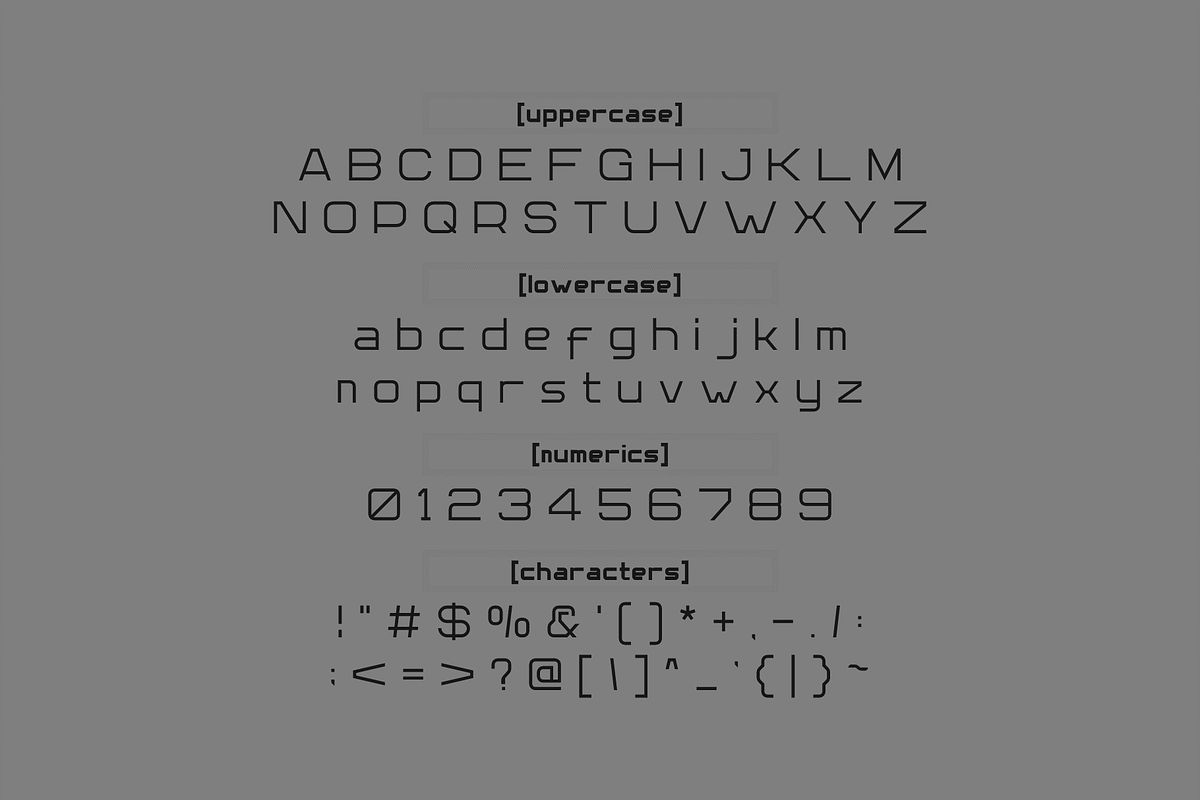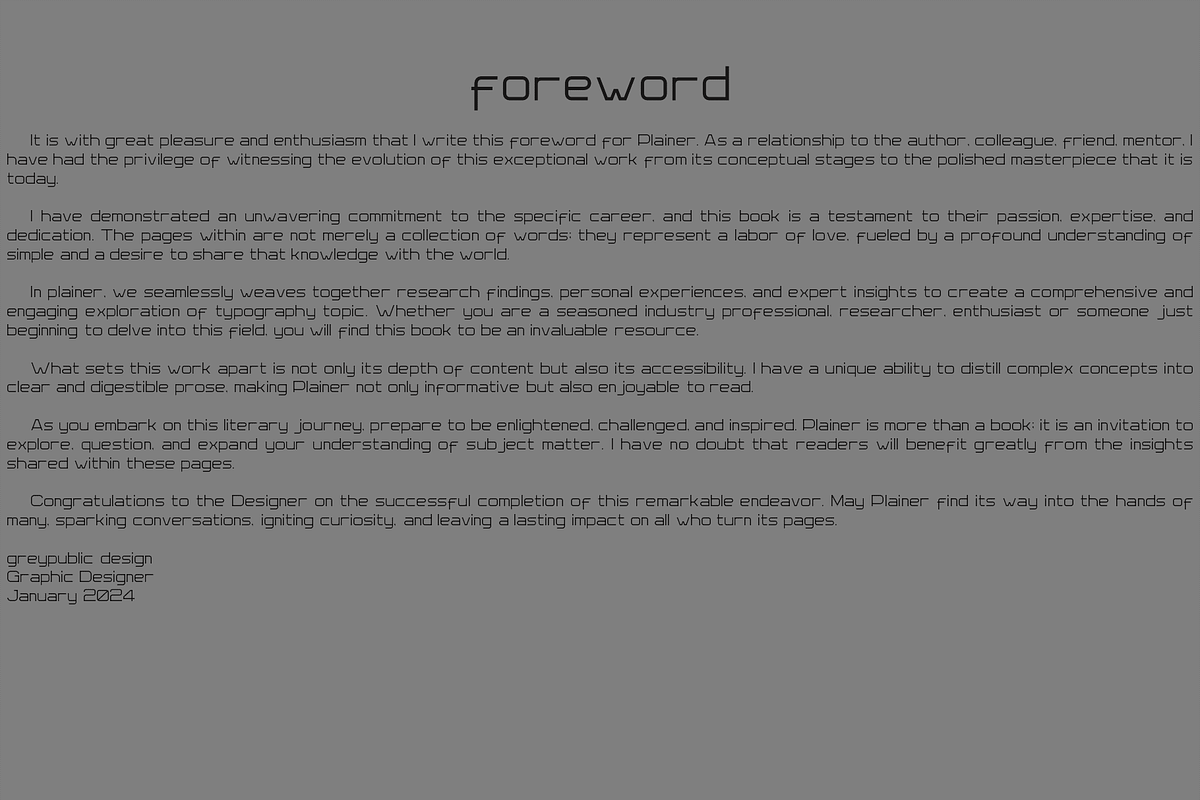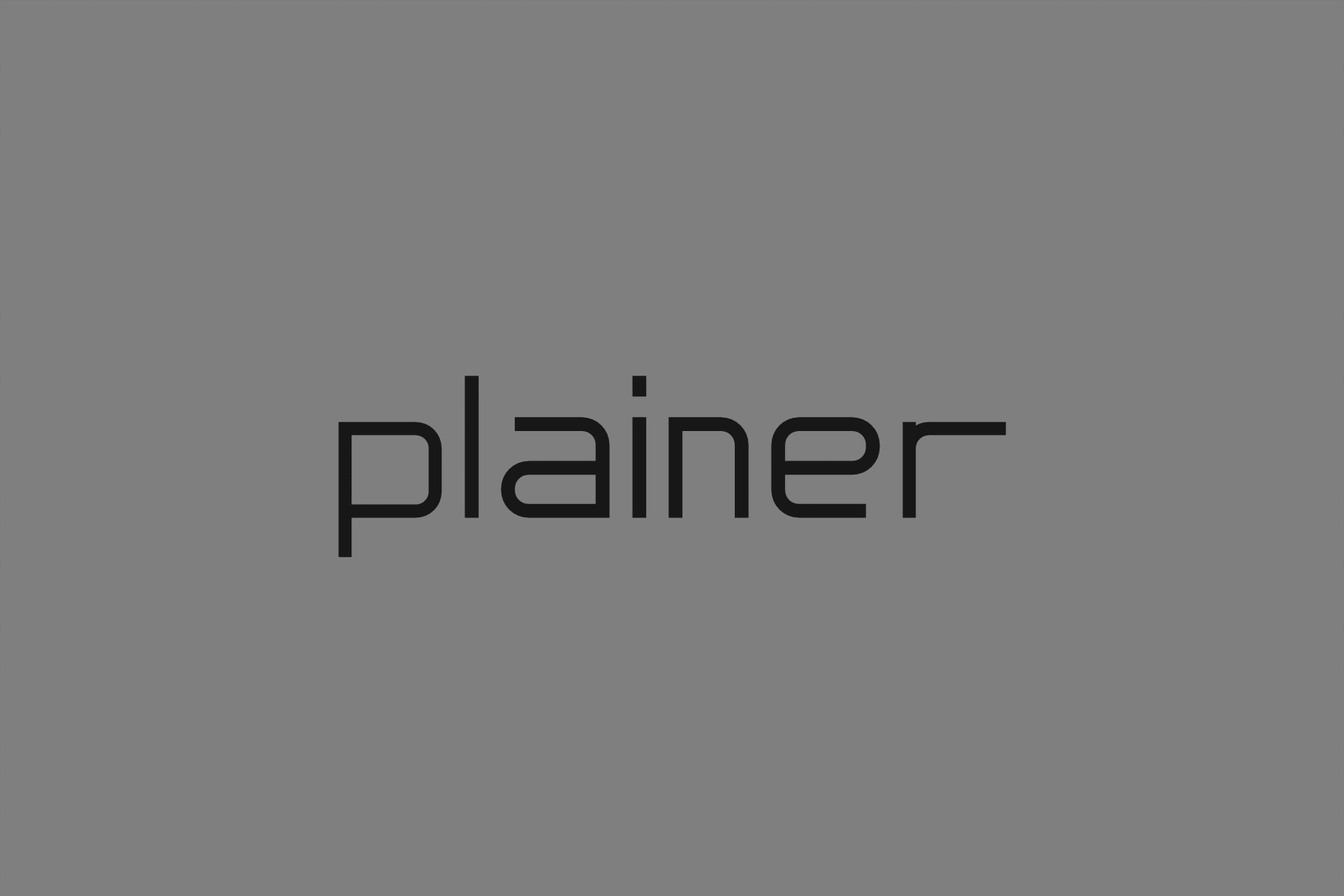
plainer font
Plainer font doesn't refer to a specific font style universally. Instead, it generally implies the type of font or typography that is commonly used for note-taking purposes. Plainer fonts are typically chosen for their clarity, readability, and simplicity, making it easy for individuals to quickly jot down information.